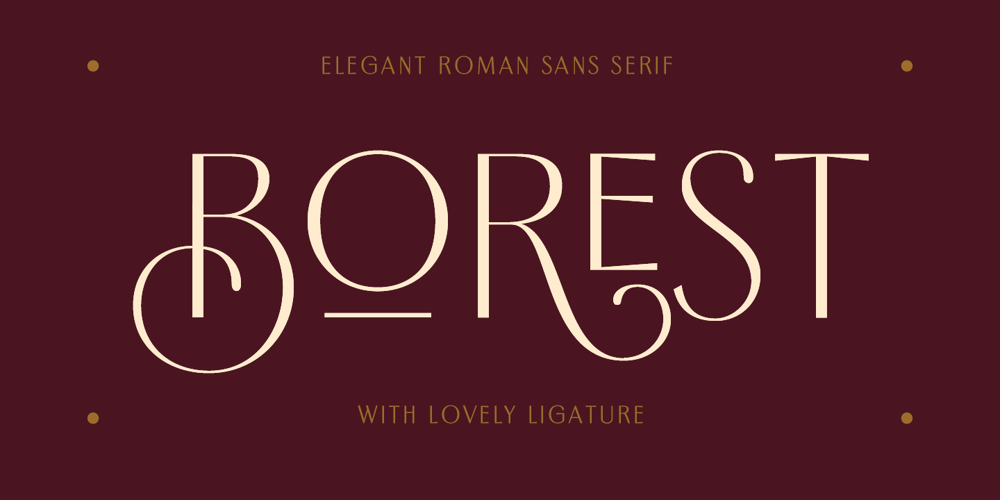
Borest Font Family was designed by Ilham Herry, Adam Fathoni Haris and published by Flavortype. Borest contains 1 styles and family package options. Borest, a new carefully crafted roman sans serif display font. The ideas for this font has a wide range of reference, from vintage, classic, art deco, until the modern era. So the looks of this font must be in the wide range of the reference above. Borest has a versatile and luxury feel as you can see in our creations on the display, such as Branding, Header, Logotype, Poster, Magazine, Packaging, Wedding Invitation with art deco style, and more. It shows that Borest can accommodate various design style. Borest comes with OpenType Features. such as Stylistic Alternates as an Ascender swash and Descender Swash and Ligatures. Every glyphs for alternates are curated for the best and without eliminating the characteristics of this font.